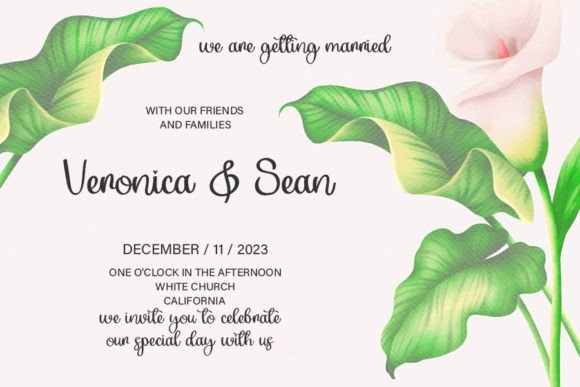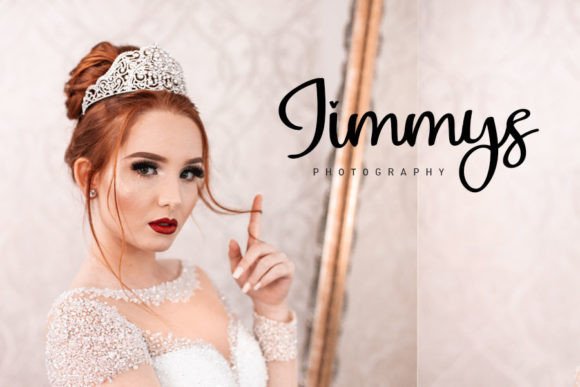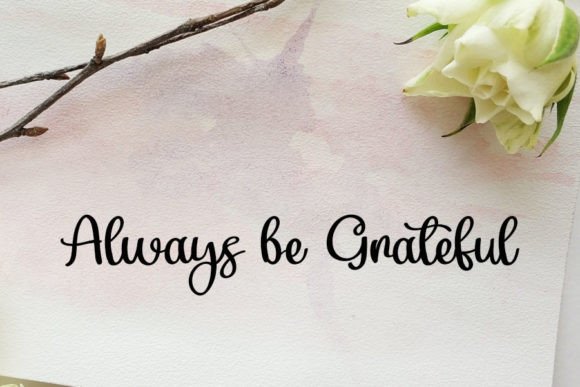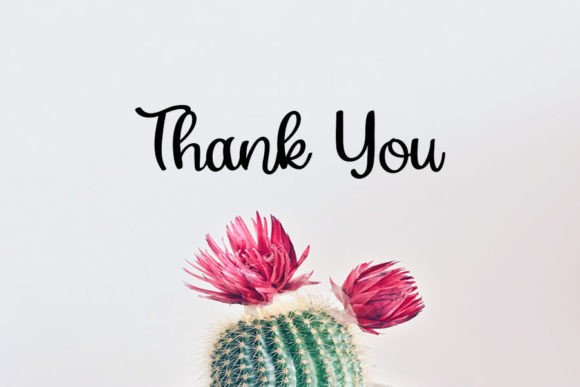
The Beauty of Typography: Discovering the Beautiful Font
When it comes to creating visually stunning designs, typography plays a crucial role. The right font can elevate your project from ordinary to extraordinary, making it essential to choose a font that not only resonates with your brand’s identity but also captivates your audience. One such font that has gained popularity among designers and crafters is the Beautiful Font, a lovely and timeless handwritten font that is perfect for creating eye-catching logos, branding, and quotes.
What Makes Beautiful Font Stand Out?
Beautiful Font is a unique and exquisite handwritten font that boasts a distinctive charm. Every letter has a beautiful touch, which sets it apart from other fonts. Its timeless appeal makes it an excellent choice for designers who want to add a touch of elegance and sophistication to their designs. Whether you’re creating a logo, branding materials, or quotes, Beautiful Font is sure to make your design come alive.
Characteristics of Beautiful Font
- Handwritten Style: Beautiful Font features a handwritten style that exudes warmth and personality, making it perfect for designs that require a personal touch.
- Unique Letterforms: Each letter in Beautiful Font has a unique and beautiful touch, ensuring that your design stands out from the crowd.
- Timeless Appeal: The font’s classic and elegant look makes it a timeless choice that won’t go out of style anytime soon.
- Elegant and Sophisticated: Beautiful Font adds a touch of elegance and sophistication to any design, making it perfect for high-end branding and luxury projects.
Uses of Beautiful Font
Beautiful Font is a versatile font that can be used in various design projects, including:
- Logo Design: Create stunning logos that showcase your brand’s personality and values.
- Branding: Use Beautiful Font to create consistent branding across all your marketing materials, from business cards to billboards.
- Quotes and Typography: Add a touch of elegance to your quotes and typography projects with Beautiful Font.
- Stationery and Packaging: Use Beautiful Font to create beautiful stationery and packaging that reflects your brand’s personality.
Tips for Using Beautiful Font Effectively
To get the most out of Beautiful Font, here are some tips to keep in mind:
- Pair it with Other Fonts: Experiment with pairing Beautiful Font with other fonts to create a unique and visually appealing typography.
- Use it for Headlines: Beautiful Font is perfect for headlines and titles, so use it to create eye-catching headings that grab attention.
- Experiment with Colors: Try out different colors to see how they interact with Beautiful Font and enhance your design.
- Keep it Simple: Don’t overdo it – keep your design simple and elegant to let Beautiful Font shine.
| Font Name | Beautiful Font |
| Author | Snowman Studio |
In conclusion, Beautiful Font is a stunning handwritten font that is perfect for designers and crafters who want to add a touch of elegance and sophistication to their designs. Its unique letterforms, timeless appeal, and elegant look make it an excellent choice for creating eye-catching logos, branding, and quotes. By following the tips outlined above, you can use Beautiful Font to take your designs to the next level and create something truly beautiful.